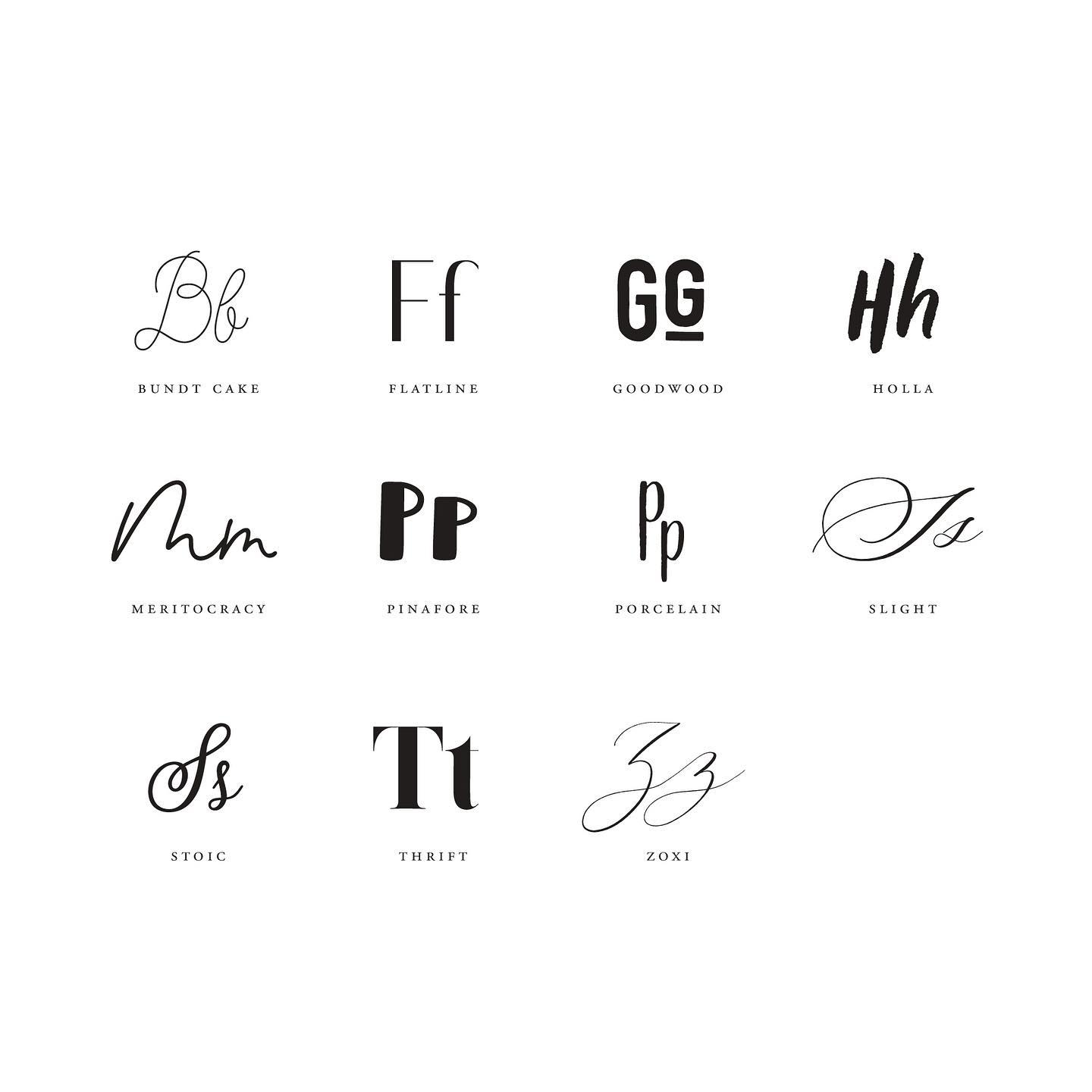
Free porcelain sans serif font is a hand lettered condensed sans serif font with subtle dip pen texture to get that personal touch feel.
Porcelain sans serif font free download. It contains uppercase lowercase numbers symbols and some other glyphs. Porcelain is perfect for branding projects logo wedding designs social media posts advertisements product packaging product designs label photography watermark invitation. Visit download page were glad to feature this beautiful porcelain free condensed sans serif font. Porcelain is perfect for branding projects logo wedding designs social media posts advertisements product packaging product designs label photography watermark invitation stationery and any projects that need handwriting taste.
Porcelain is perfect for branding projects logo wedding designs social media posts advertisements product packaging product designs label photography watermark invitation stationery and any projects that need handwriting taste. Go give some love to pixelify for sharing this top notch free font. Porcelain is a hand lettered condensed sans serif font with subtle dip pen texture to get that personal touch feel.